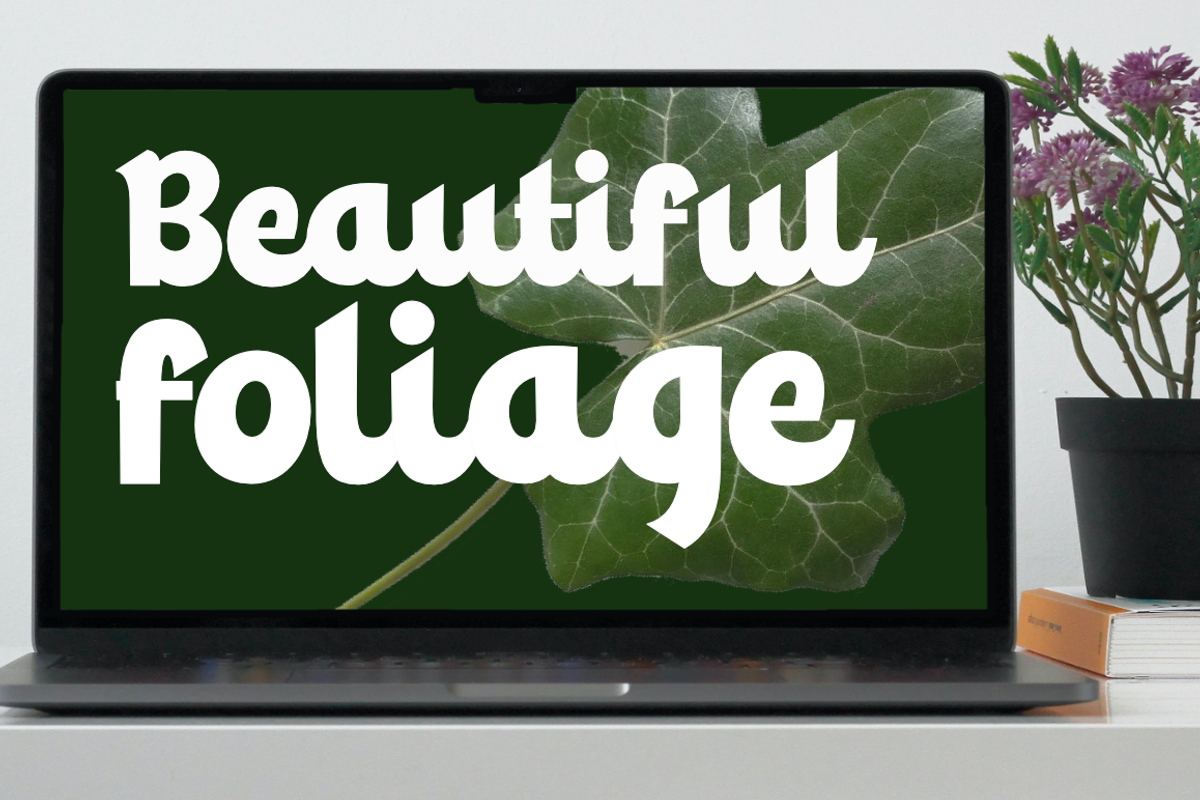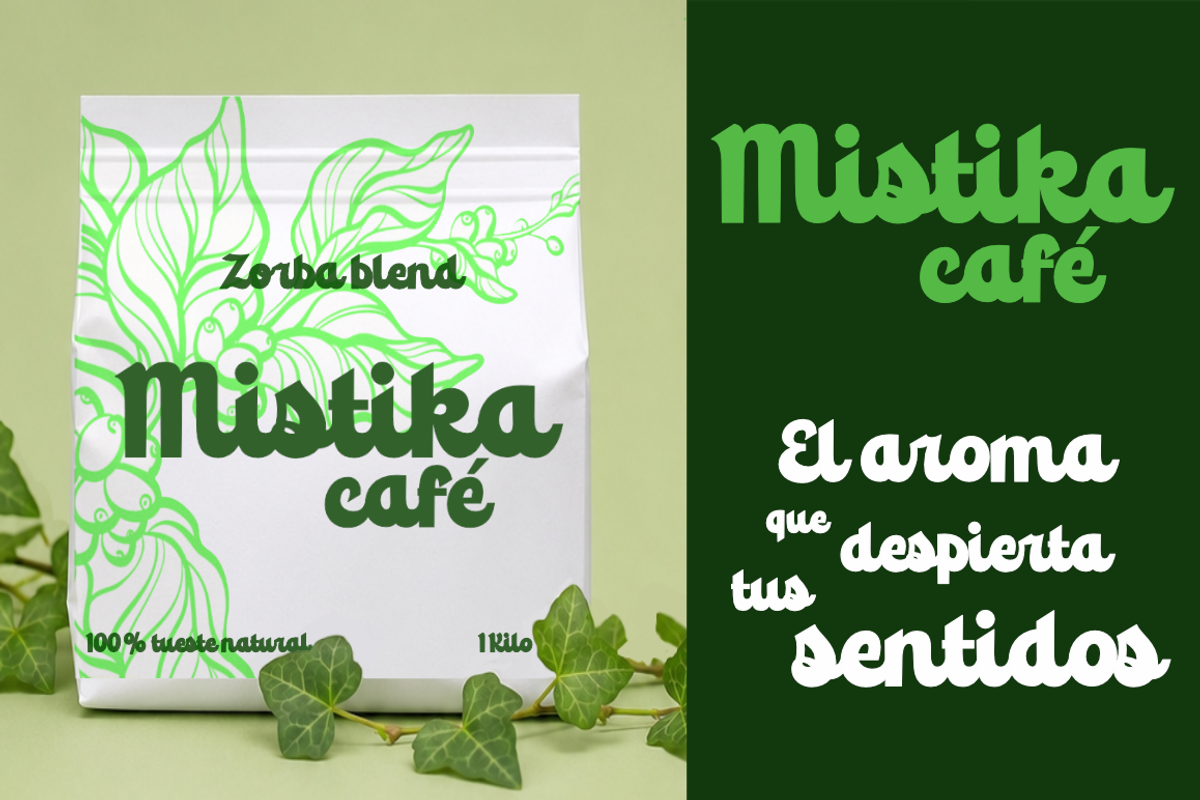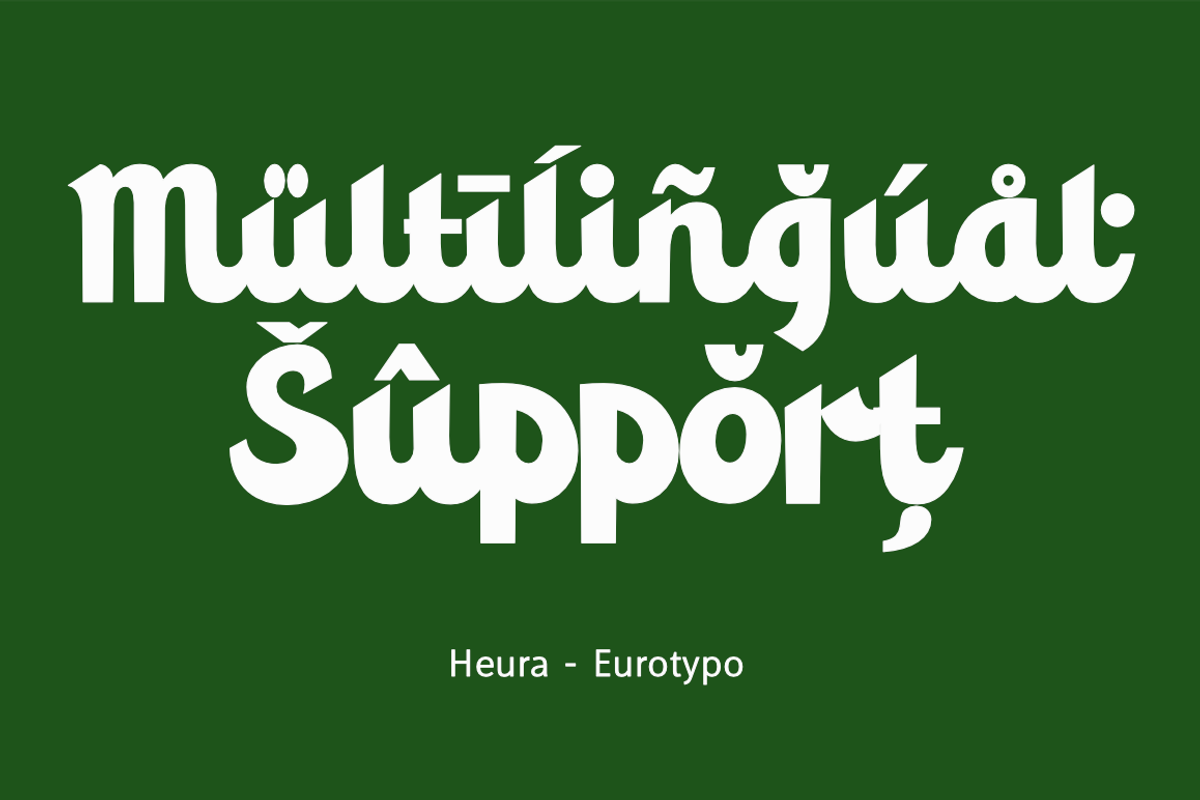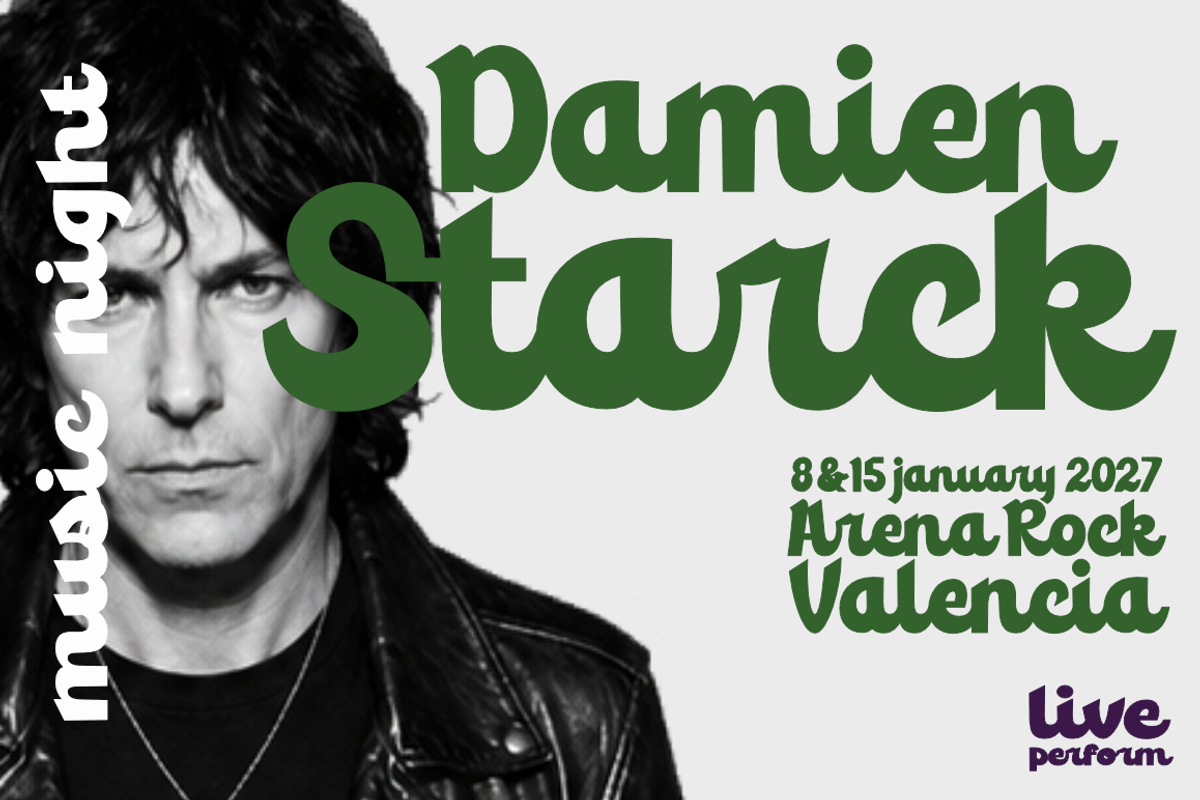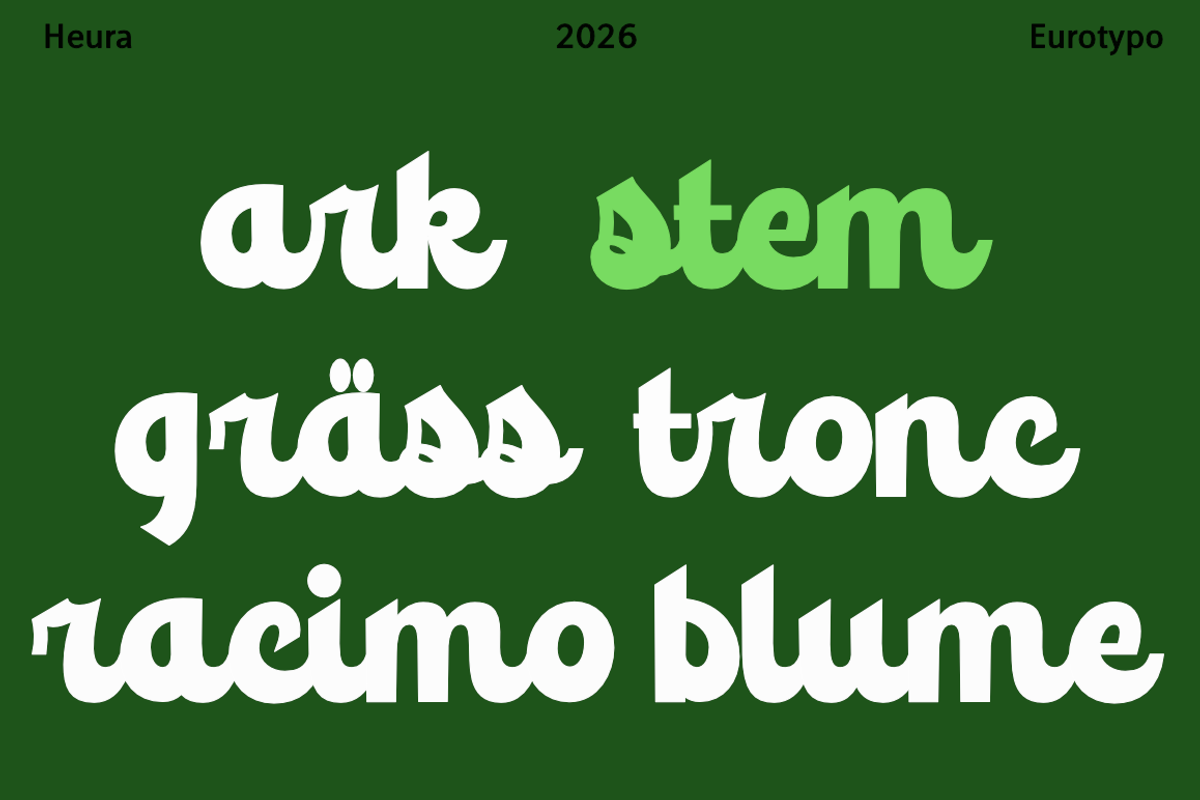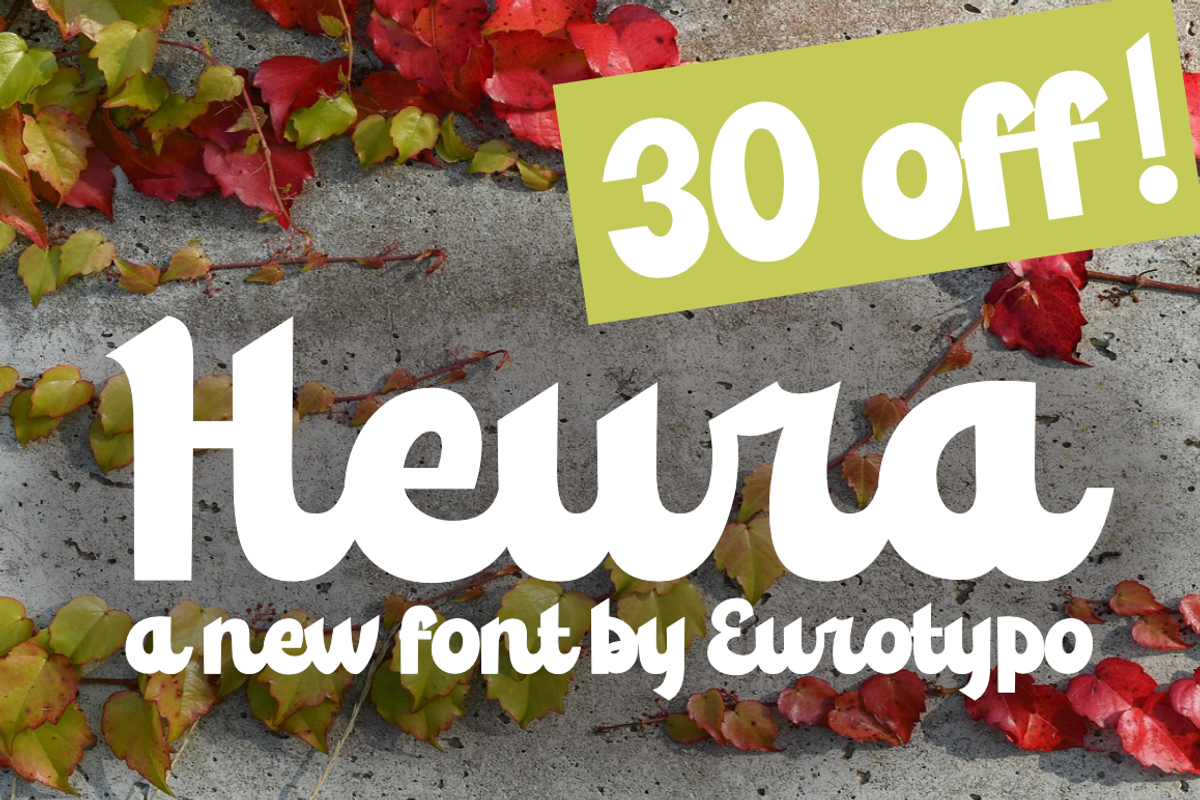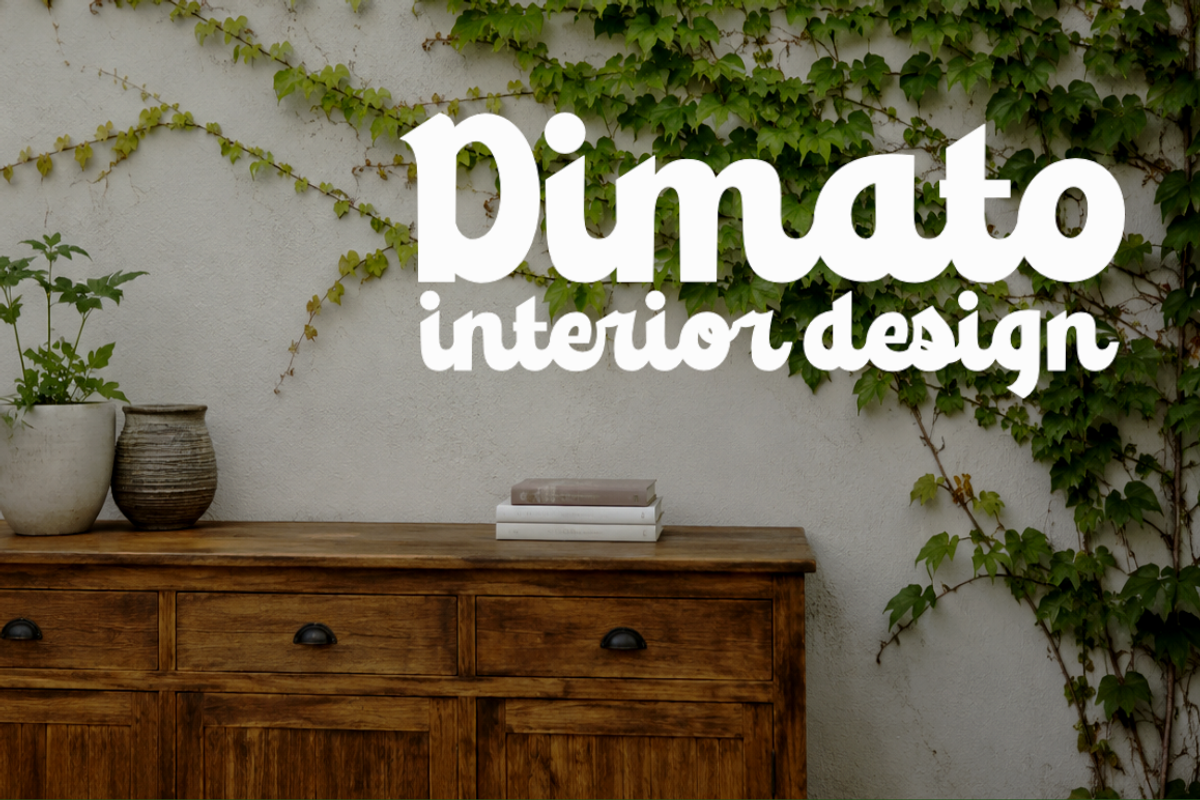
Heura
Looking to give your brand or text a breath of fresh air? Introducing Heura, the new typeface launched in 2016 by Eurotypo studio.
With organic inspiration in every stroke, Heura is a bold, robust, and delightfully fluid font. Designed with an undeniable botanical spirit, its thick forms mimic the vital and whimsical energy of vines (true to its name). The letter endings, smooth curves, and asymmetrical cuts are reminiscent of leaves, stems, and buds, giving each word a natural, approachable, and highly dynamic rhythm.
Heura has guaranteed visual impact: its bold weight and assertive script style ensure your headlines and logos never go unnoticed. It's a font that makes a strong statement… Heura has warmth and authenticity: its "handmade" yet professional look breaks with the coldness of traditional typefaces, creating an immediate and emotional connection with the viewer.
With Heura, your messages cease to be mere text and become an ecosystem of creativity.
Give your next project a strong foundation and let your ideas flourish with vibrant typography. Dare to design with Heura.